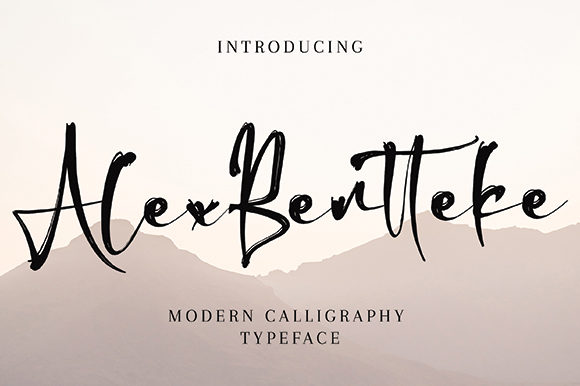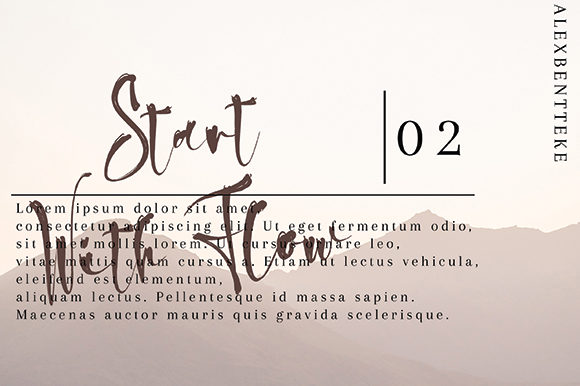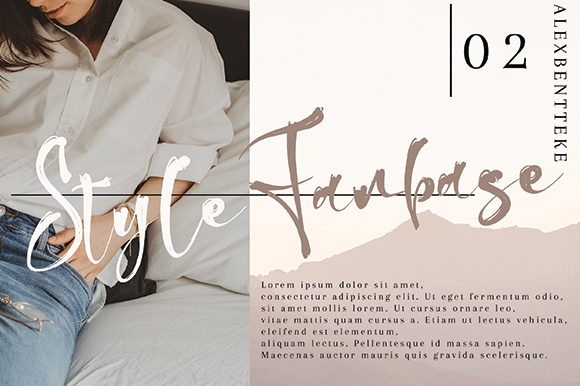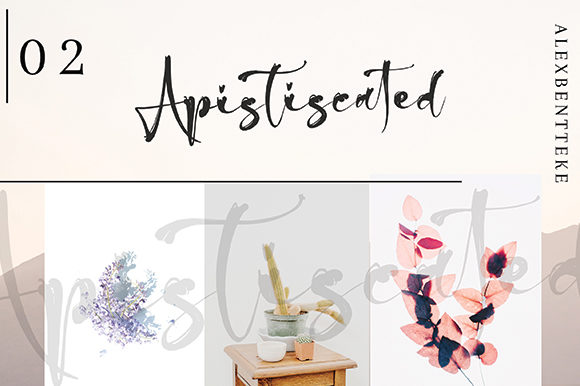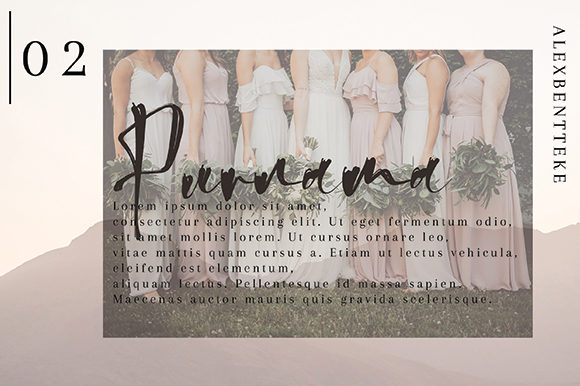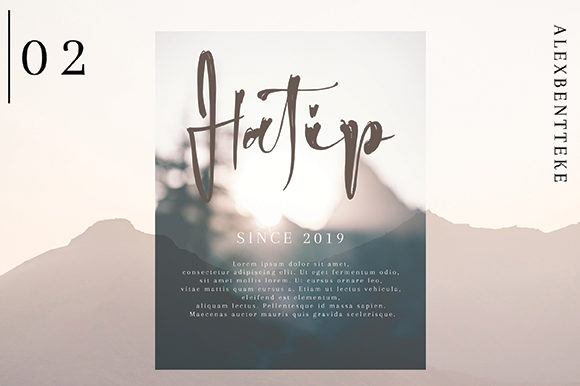
Alex Bentteke Font
About Alex Bentteke Font
Drawn with a dry brush, Alex Bentteke is a quite unique take on a classic handwritten font. This raw, yet somewhat charming script will make any text stand out.